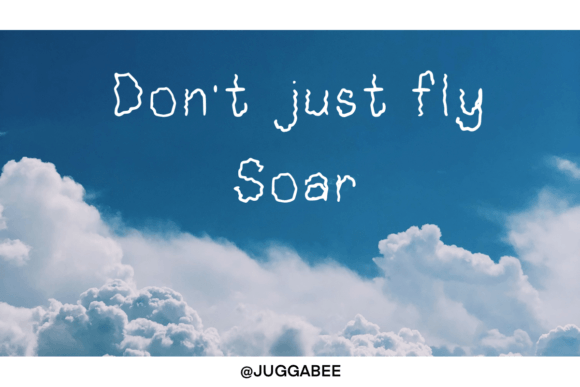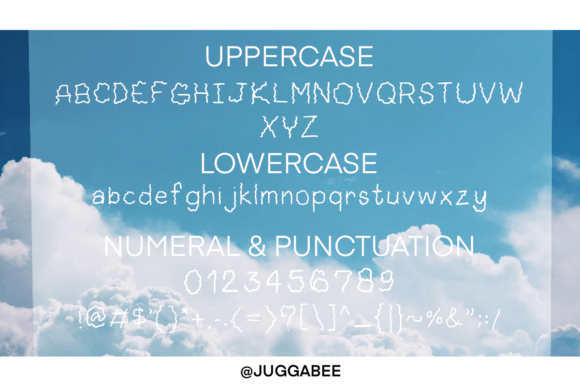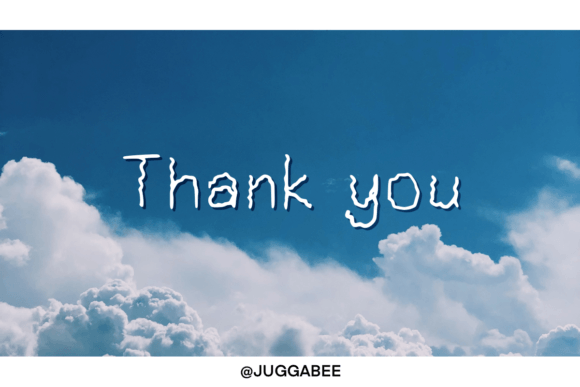
Introducing Cloud Font: The Ultimate Handwritten Font for Crafty Ideas
Are you a designer or crafter looking for a unique and playful font to add to your creative projects? Look no further than Cloud Font! This fun and quirky handwritten font is perfect for adding a personal touch to your crafty ideas. In this article, we’ll explore the features and benefits of Cloud Font, and show you how to make the most of this versatile font.
What is Cloud Font?
Cloud Font is a handwritten font designed to bring a touch of whimsy and playfulness to your designs. With its soft, rounded edges and bouncy letterforms, Cloud Font is perfect for creating eye-catching titles, headings, and text elements. The font is highly legible, making it suitable for use in a variety of applications, from digital projects to print materials.
Key Features of Cloud Font
- Handwritten style: Cloud Font has a distinctly handwritten feel, giving your designs a personal and human touch.
- Quirky and playful: The font’s irregular letterforms and bouncy edges add a playful touch to your designs.
- Highly legible: Despite its playful nature, Cloud Font is highly legible, making it suitable for use in a variety of applications.
- Versatile: Cloud Font can be used in a range of design projects, from digital graphics to print materials.
Benefits of Using Cloud Font
- Adds a personal touch: Cloud Font’s handwritten style gives your designs a personal and human touch, setting them apart from more formal fonts.
- Creates a playful vibe: The font’s quirky and playful nature makes it perfect for creating designs that are fun and engaging.
- Easy to read: Despite its playful nature, Cloud Font is highly legible, making it easy for readers to quickly scan and understand your text.
- Versatile: Cloud Font can be used in a range of design projects, from digital graphics to print materials.
Using Cloud Font in Your Design Projects
- Digital graphics: Use Cloud Font to create eye-catching titles and headings for your digital graphics, such as social media posts and blog headers.
- Print materials: Cloud Font is perfect for use in print materials, such as flyers, brochures, and posters.
- Crafting projects: Add a personal touch to your crafting projects, such as handmade cards and gift tags, with Cloud Font.
- Branding and packaging: Use Cloud Font to create a unique and playful brand identity for your business or product.
Tips for Getting the Most Out of Cloud Font
- Experiment with different colors: Cloud Font looks great in a range of colors, so don’t be afraid to experiment and find the perfect hue for your design.
- Mix and match with other fonts: Cloud Font pairs well with a range of other fonts, so try mixing and matching to create a unique and interesting effect.
- Use it sparingly: While Cloud Font is a versatile font, it’s best used sparingly to add emphasis and interest to your designs.
| Font Name | Cloud Font |
| Author | Juggabee |